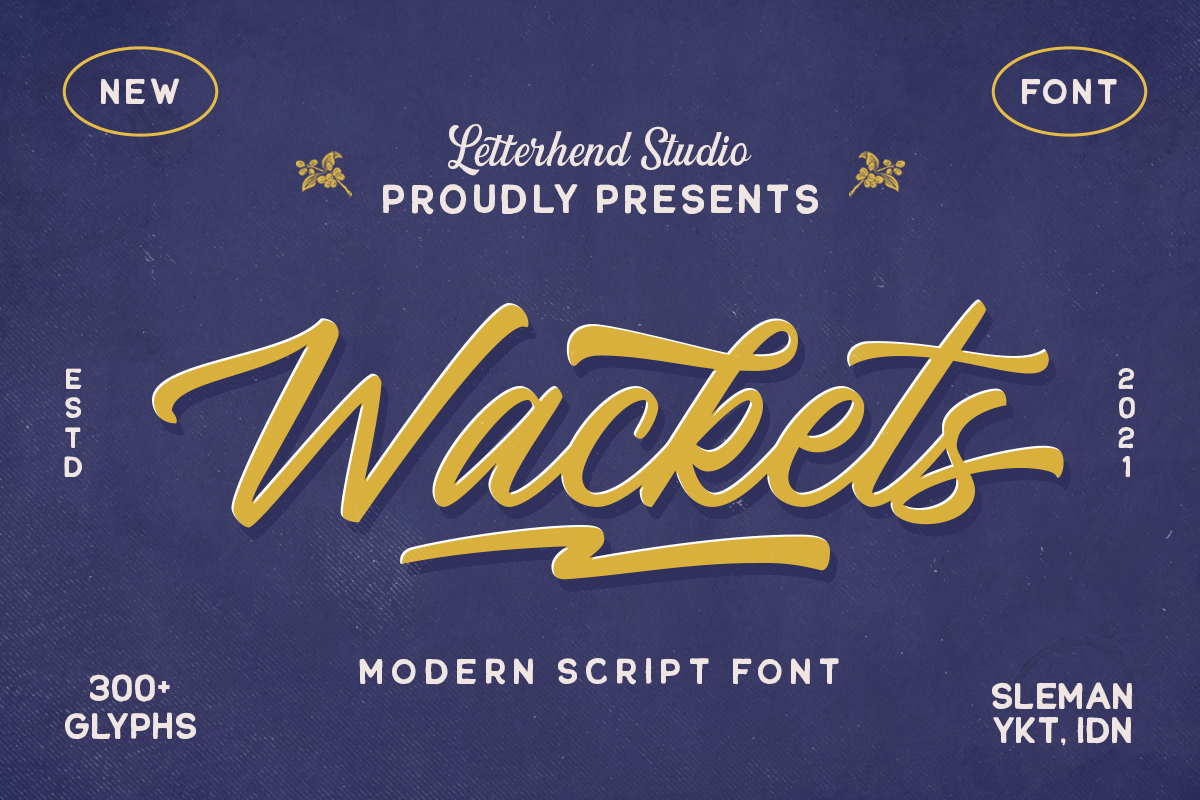
Wackets Font
Wackets Font is perfect for quirky children's book covers, playful toy store branding, whimsical craft project labels, fun educational game interfaces, creative workshop materials, imaginative party invitation designs, cheerful nursery decor graphics, artistic playground signage, colorful animation title cards, and spontaneous creative expression projects. This delightfully unique typeface brings joyful character to children's entertainment brands, creative art studios, playful social media campaigns, imaginative product packaging, and whimsical lifestyle brand communications.
Wackets Font is exciting because it captures the essence of playful creativity and quirky charm through its uniquely unconventional letterforms that celebrate the joy of being different and wonderfully weird. The font features characterful letters with unexpected angles and delightfully irregular proportions that evoke the spontaneous nature of children's artwork, the freedom of creative expression, and the charming imperfection of handmade crafts. Its distinctive construction demonstrates creative freedom with carefully crafted irregularities that create an immediate sense of joy and authentic playfulness. The font's quirky personality and creative authenticity make it perfect for brands seeking to communicate creative freedom, joyful expression, and the celebration of uniqueness in their visual communications.
Wackets Font family includes various playful styles: Light, Regular, Bold, Bouncy, Wobbly, Artistic, Condensed, Extended, Script, Doodle, Creative, and Whimsical variants. Each family member maintains the core quirky DNA while offering different levels of playfulness for diverse creative design applications. The comprehensive font collection ensures consistent whimsical branding across children's products, creative campaigns, and artistic expression materials.
Whether you're creating children's brand identities, designing playful marketing materials, developing creative website headers, or crafting whimsical promotional campaigns, Wackets Font delivers outstanding quirky appeal and playful authenticity. The font's distinctive creative personality excels in children's logos, fun packaging design, artistic applications, and imaginative projects where creative freedom and joyful expression are essential.